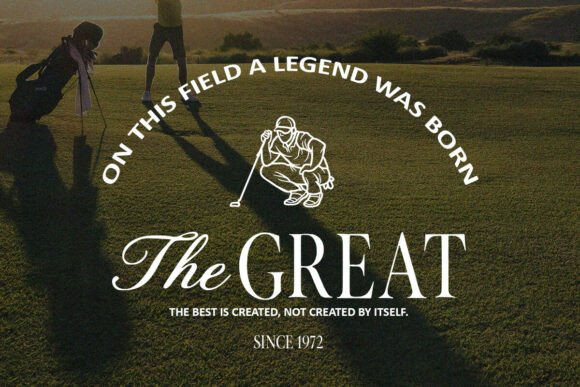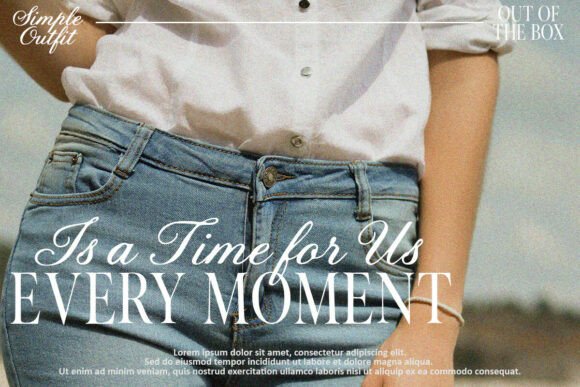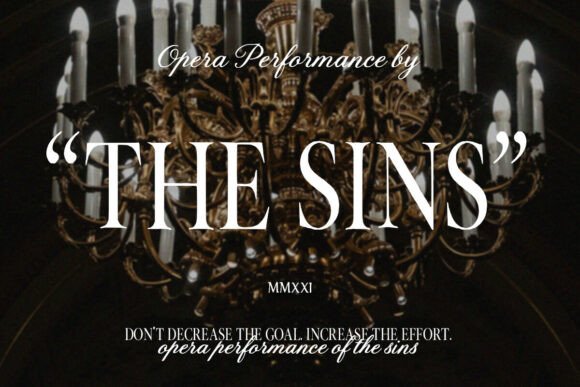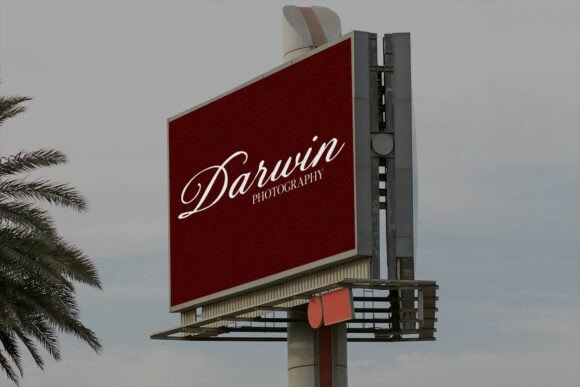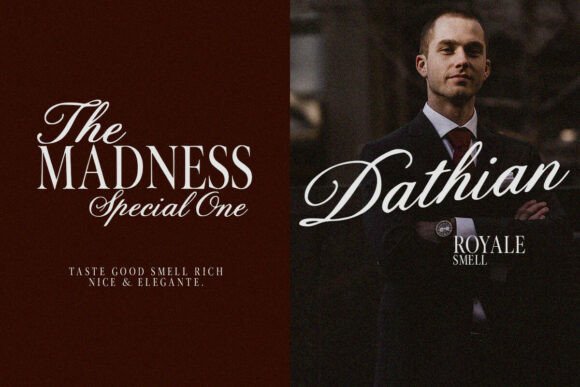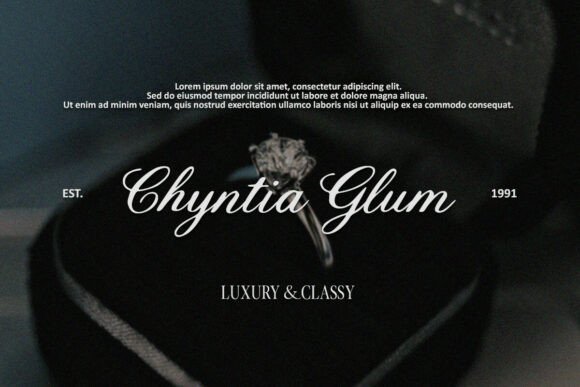
Introducing Fall Diary Font: Elevate Your Designs with Timeless Elegance
Are you a designer or crafter looking for a font that embodies the perfect blend of tradition and modernity? Look no further than Fall Diary Font, a harmonious duo of handwritten serif and calligraphy script fonts meticulously crafted by Struggle Studio. This stunning collection is designed to evoke an instant sense of luxury and personal touch, making it the ideal choice for premium branding identities, boutique logos, sophisticated wedding invitations, and high-fashion editorial layouts.
A Perfect Harmony of Contrasting yet Complementary Characters
Fall Diary Font is a dynamic duo that seamlessly pairs two contrasting yet complementary characters: a tall, authoritative Handwritten Serif and a fluid, dynamic Calligraphy Script. The Handwritten Serif boasts sharp, refined lines that exude a sense of sophistication and elegance, while the Calligraphy Script adds a touch of artistic flair with its fluid, dynamic strokes. This perfect harmony of contrasting characters creates a unique and captivating visual experience that is sure to elevate your designs.
Inspired by the Nostalgic and Elegant Atmosphere of Autumn
As the name suggests, Fall Diary Font is inspired by the nostalgic and elegant atmosphere of autumn. The font duo brings a timeless vintage aesthetic that remains perfectly relevant for contemporary design needs. The warm, rich tones of autumn are reflected in the font’s design, evoking feelings of coziness, comfort, and sophistication. Whether you’re designing a luxury brand identity or a wedding invitation, Fall Diary Font is sure to add a touch of warmth and elegance to your design.
Transform Ordinary Layouts into Expensive, High-End Masterpieces
With the sharp, refined lines of the Serif and the artistic flourishes of the Script, Fall Diary Font effortlessly transforms ordinary layouts into expensive, high-end masterpieces. The font duo is designed to add a touch of luxury and sophistication to any design, making it perfect for designers and crafters who want to create high-end branding identities, boutique logos, and editorial layouts. Whether you’re working on a luxury fashion brand or a high-end wedding invitation, Fall Diary Font is sure to elevate your design to new heights.
Key Highlights of Fall Diary Font
- Dynamic Duo: An instantly contrasting yet complementary pair of a tall, authoritative Handwritten Serif and a fluid, dynamic Calligraphy Script.
- Timeless Vintage Aesthetic: A nostalgic and elegant atmosphere inspired by the warmth of autumn.
- Luxury and Sophistication: Sharp, refined lines and artistic flourishes that add a touch of luxury and sophistication to any design.
- Versatile: Perfect for premium branding identities, boutique logos, sophisticated wedding invitations, and high-fashion editorial layouts.
- Style Statement: A font duo that makes a statement for those who prioritize grace and elegance in every detail.
Why Choose Fall Diary Font?
Fall Diary Font is more than just typography; it’s a style statement for those who prioritize grace and elegance in every detail. Here are just a few reasons why you should choose Fall Diary Font for your next design project:
- Unique and Captivating: The font duo’s contrasting yet complementary characters create a unique and captivating visual experience.
- Timeless Elegance: The font’s timeless vintage aesthetic ensures that your design will remain elegant and sophisticated for years to come.
- Versatile: The font duo is perfect for a wide range of design projects, from luxury branding identities to high-end wedding invitations.
- Easy to Use: The font duo is easy to use and pairs perfectly with a wide range of design software.
| Author | Struggle Studio |
In conclusion, Fall Diary Font is a stunning collection of handwritten serif and calligraphy script fonts that is sure to elevate your designs to new heights. With its perfect harmony of contrasting yet complementary characters, timeless vintage aesthetic, and luxury and sophistication, Fall Diary Font is the ideal choice for designers and crafters who want to create high-end branding identities, boutique logos, and editorial layouts. So why wait? Download Fall Diary Font today and experience the power of elegant typography for yourself.